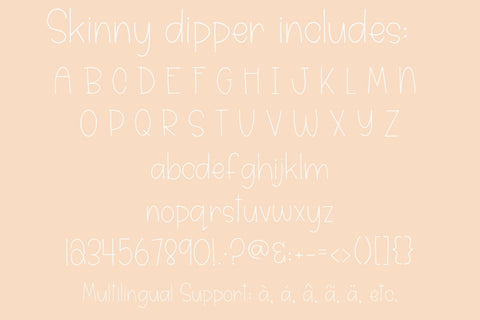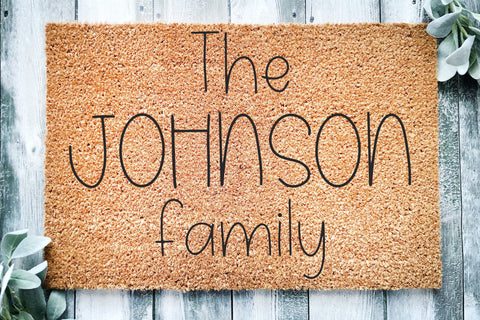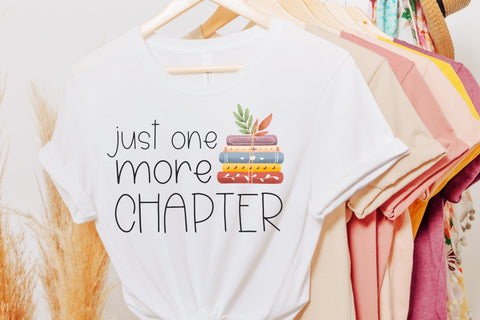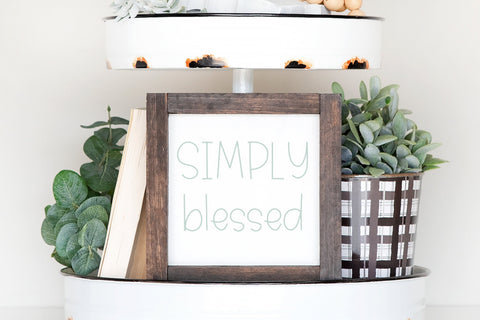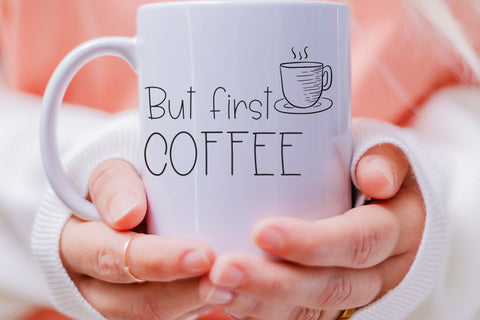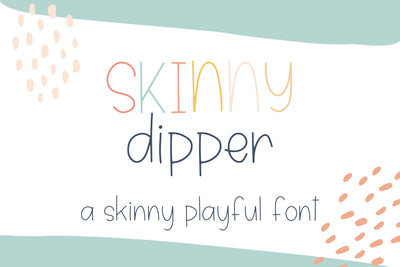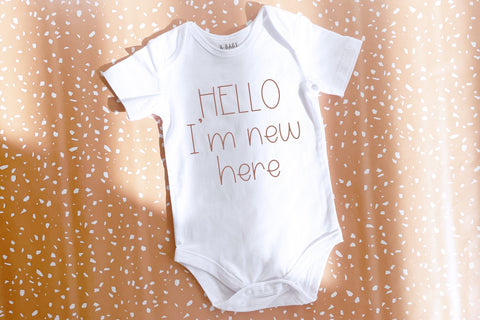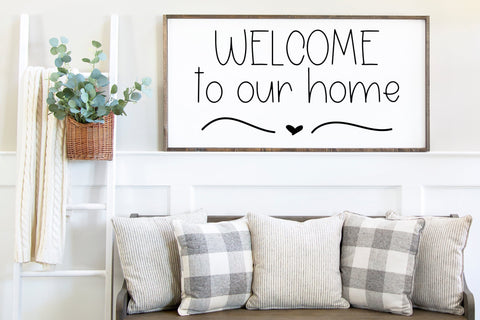
Skinny Dipper, cute handwritten font
Introducing Skinny Dipper, a playful Handwritten Font for Cricut - a charming and cute addition to your creative projects! This unique font is perfect for all your Cricut designs, making it a must-have for craft enthusiasts. With its playful and fun handwriting style, Skinny Dipper adds a touch of whimsy and personality to any project.